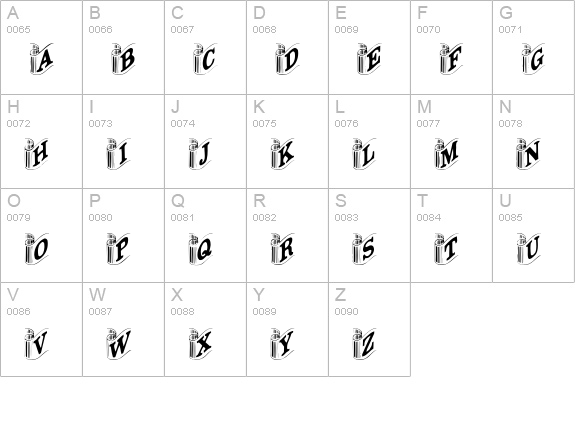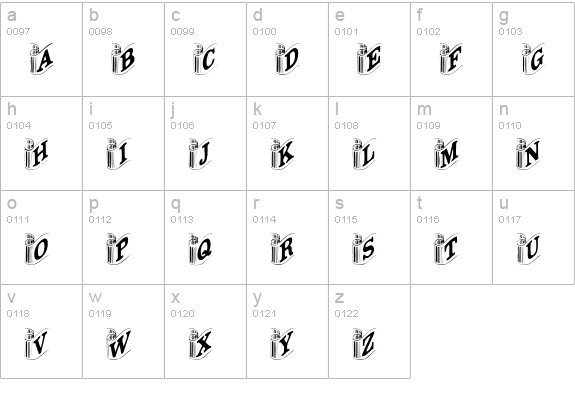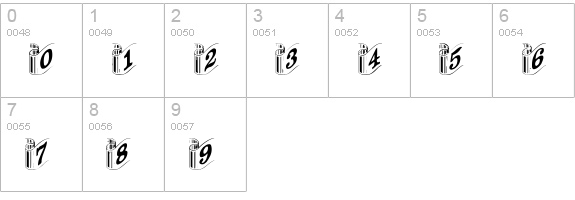
Davys-Ribbons font is a whimsical and decorative typeface that brings a touch of elegance to any design project. Its flowing lines and intricate details make it perfect for invitations, posters, and other creative endeavors. The graceful curves and loops of this font give it a unique and eye-catching appearance that will surely captivate your audience. The best part about Davys-Ribbons font is that it is completely free to use! You can easily download this stunning font from FontsMarket.com and start incorporating it into your designs right away. Whether you are designing a wedding invitation, a promotional flyer, or a social media post, Davys-Ribbons font is sure to add a touch of sophistication and charm. With its free availability and versatile design, Davys-Ribbons font is a must-have for any designer looking to elevate their projects with a touch of elegance. Download it today and let your creativity shine with this beautiful and captivating font.